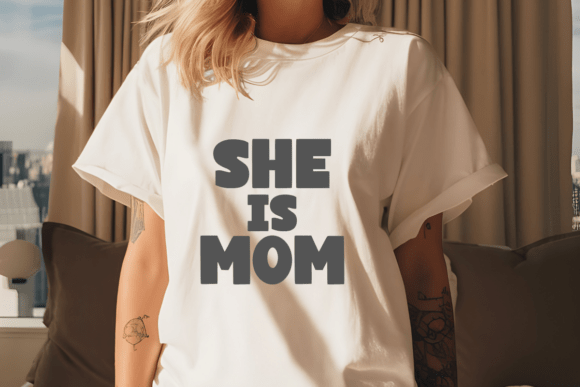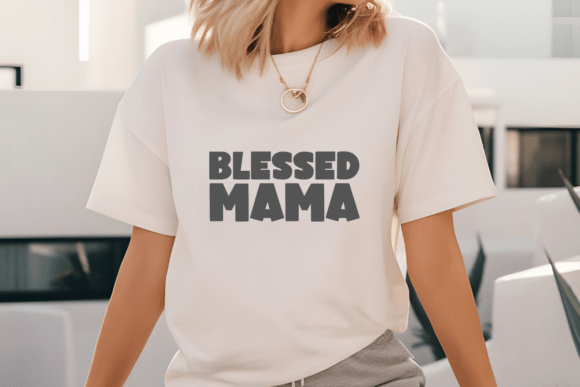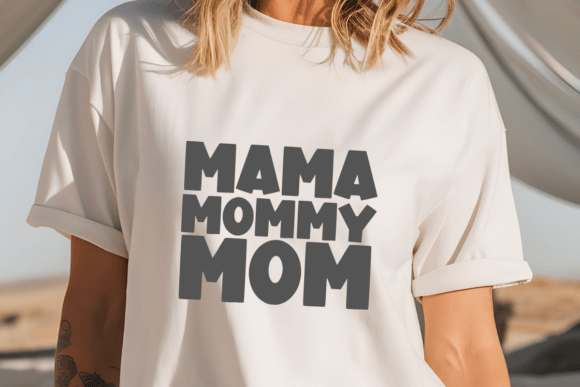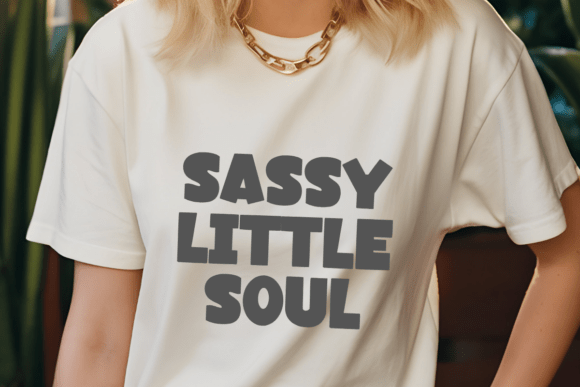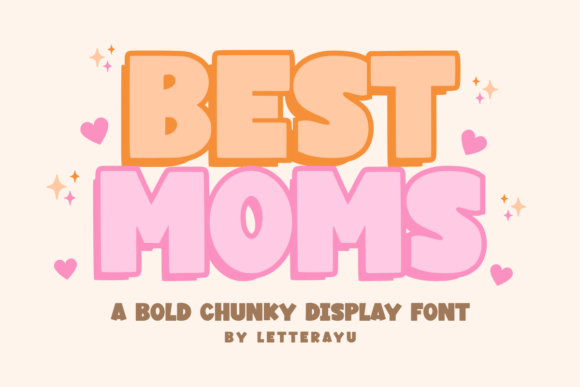
The Best Mom Font for Your Creative Projects
I’ll never forget the time I was working on a Mother’s Day project for a client, and I just couldn’t find the perfect font. I wanted something bold, playful, and cheerful, but everything I tried seemed either too boring or too over-the-top. That’s when I stumbled upon the Best Mom font, and it instantly became my go-to for all things mom-related. In this article, I’ll share my love for this font, its features, and how to make the most of it in your creative projects.
An Honest Review of Best Mom Font
- ✨ Bold and Chunky: Best Mom font is perfect for making a statement. Its thick, legible characters make it ideal for greeting cards, invitations, and DIY gifts.
- ✅ Playful and Cheerful: This bubbly typeface adds a fun touch to Cricut projects, apparel, and nursery decor.
- 🎉 Versatile: Best Mom font is suitable for various creative projects, from Mother’s Day crafts to playful branding.
While I adore the Best Mom font, there are a few things to keep in mind:
- 🤔 Limited Glyphs: The font might not have an extensive range of glyphs or special characters, which could limit its use in certain projects.
- ⚠️ Not Suitable for Body Text: Due to its bold and chunky nature, Best Mom font might not be the best choice for body text or long paragraphs.
The Designer Inspiration Behind Best Mom Font
The Best Mom font was created with the intention of capturing the playful, loving spirit of motherhood. Its designer aimed to create a font that would be perfect for Mother’s Day crafts, stickers, and other creative projects. With its bold, chunky characters and cheerful personality, Best Mom font is sure to bring a smile to anyone’s face.
Q: What is the Best Mom font suitable for?
A: Best Mom font is perfect for Mother’s Day crafts, stickers, playful branding, Cricut projects, apparel, and nursery decor.
Q: Is Best Mom font available in different styles or weights?
A: Currently, Best Mom font is available in a single style. However, its bold and chunky nature makes it versatile enough to be used in various creative projects.
Q: Can I use Best Mom font for my branding?
A: Absolutely! Best Mom font’s playful and cheerful personality makes it perfect for branding projects that require a fun and loving touch.